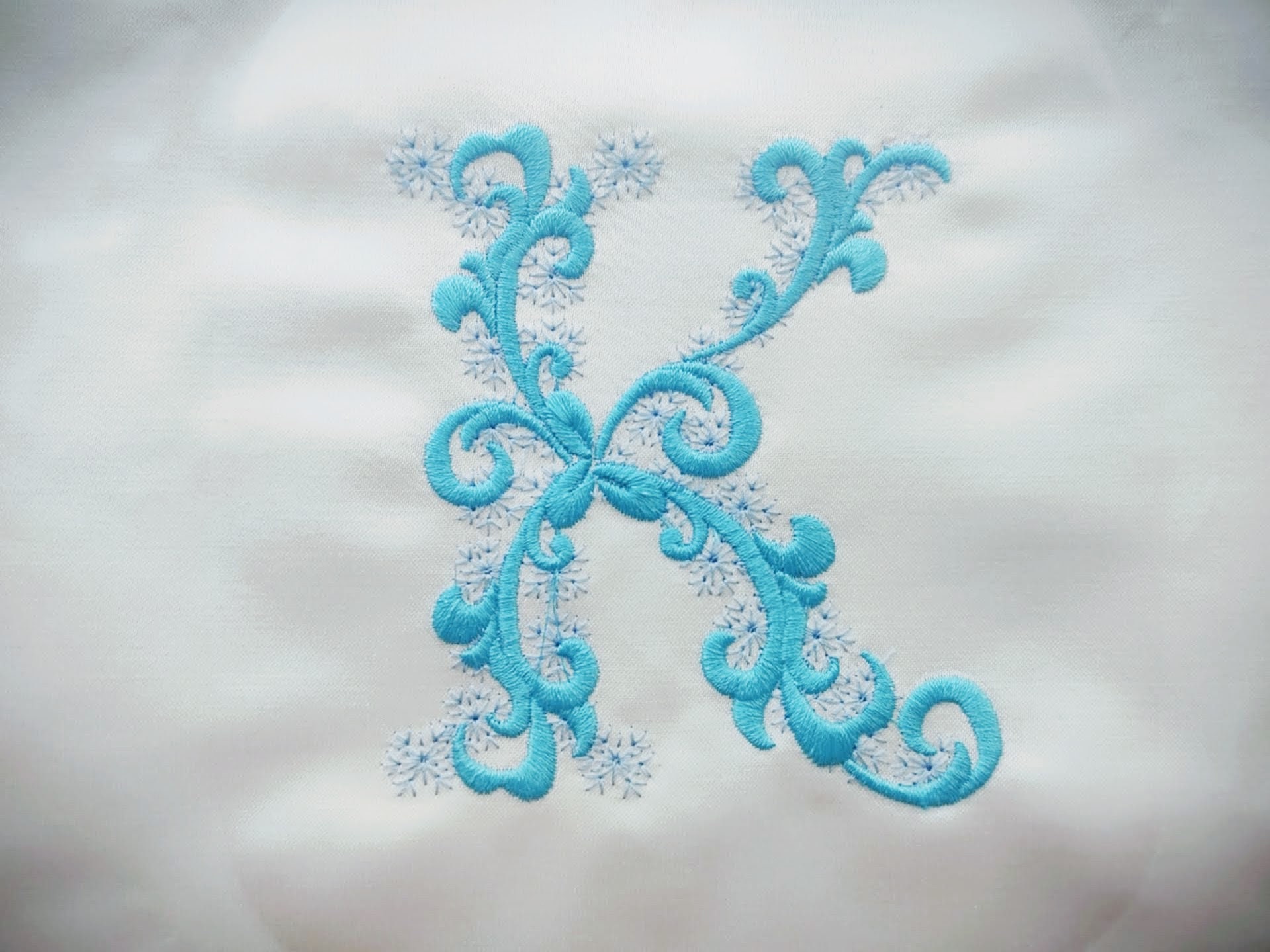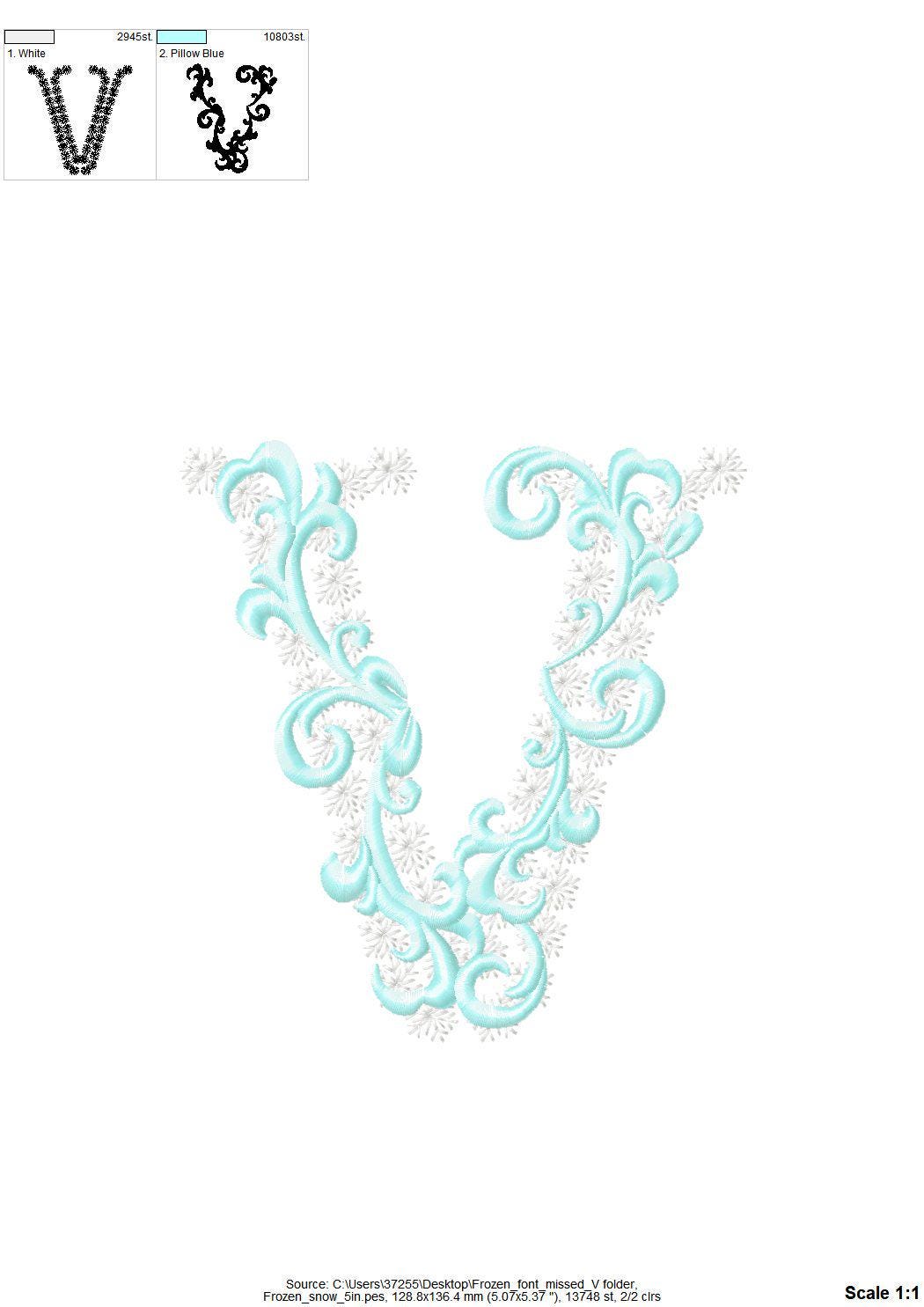
Monogram Frozen Font machine embroidery designs many sizes from 3 up to 8 inch swirl curl Christmas alphabet pretty girly snowflake letters
very interesting and original font
This is a truly beautiful font.